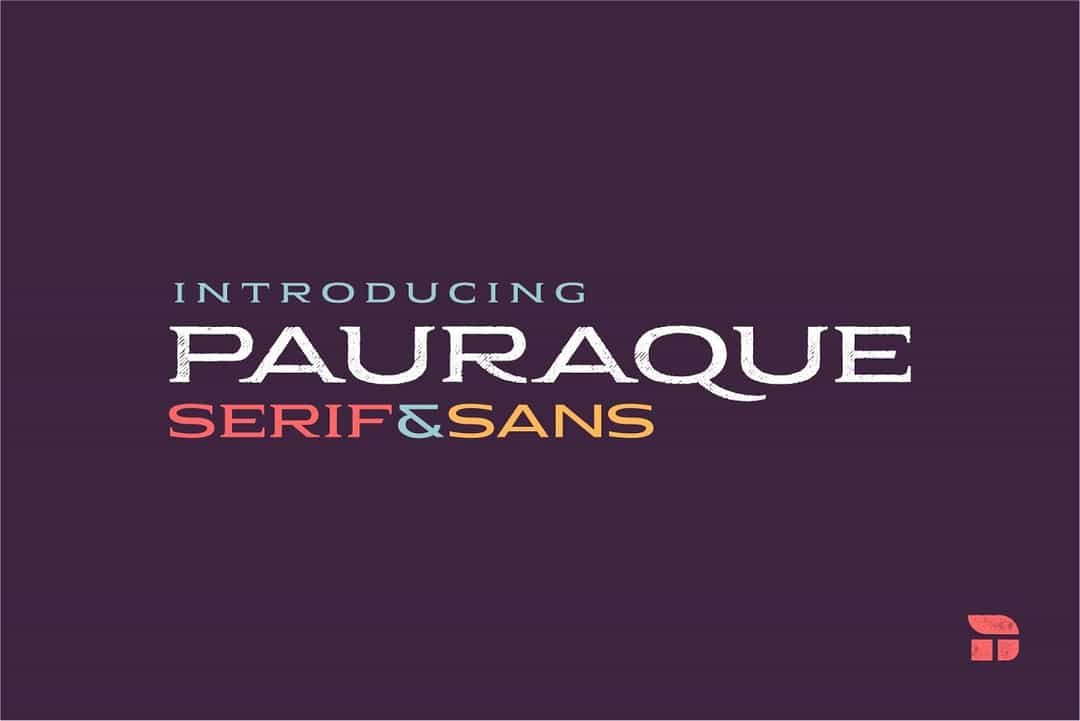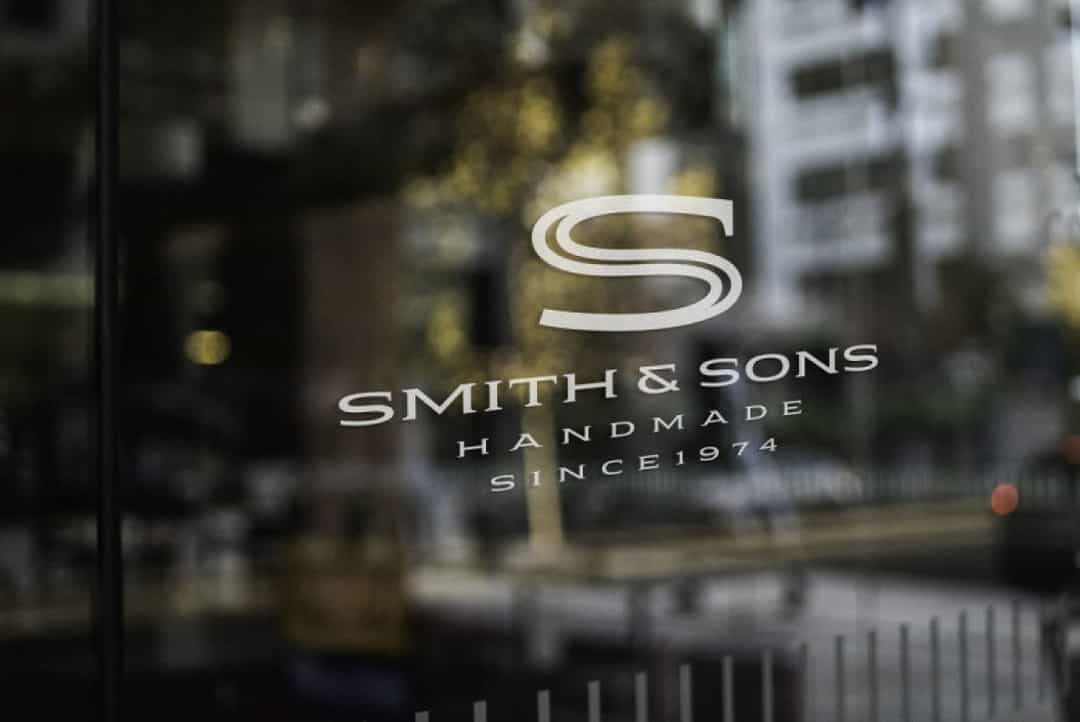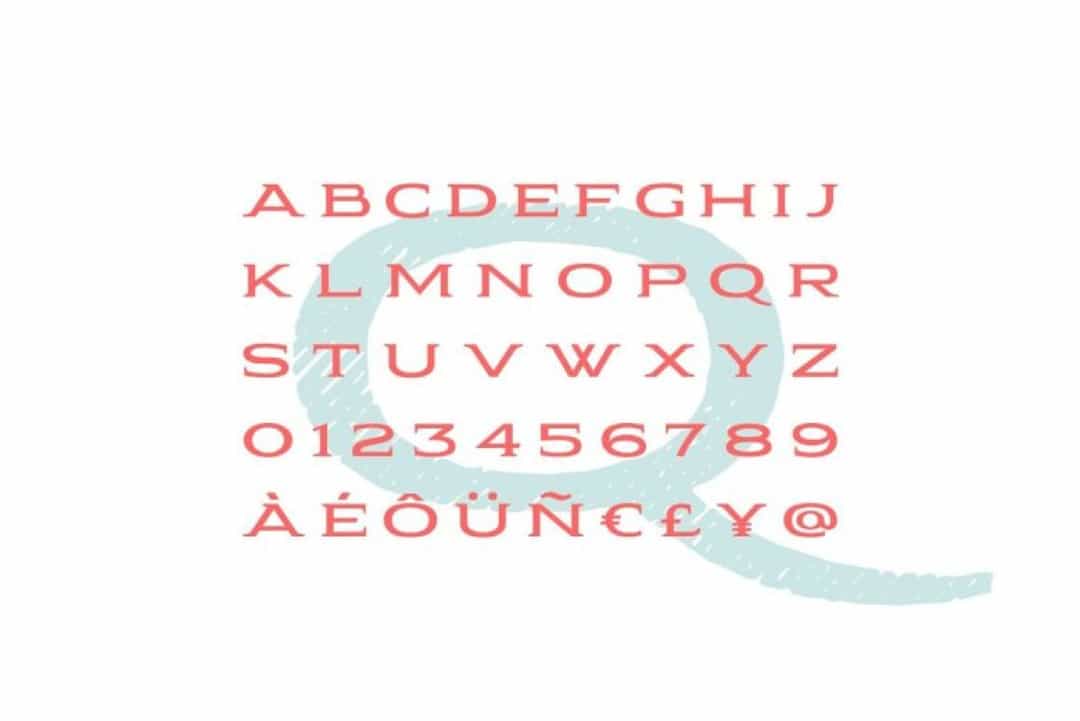
Discover Pauraque Font, part of the Serif collection—a versatile and unique font perfect for adding a personal touch to your projects. Download it for free and enjoy crafting designs with style, from invitations to social media posts. This font is available exclusively for personal use, giving you the freedom to create without limits. Unlock your creativity with Pauraque Font today!
Pauraque will be a great, broad and readable partner for you. It has the retro geometric shape and clear style that will add a professional touch to any project; ideal for use! Pauraque can assist in making any work easier!